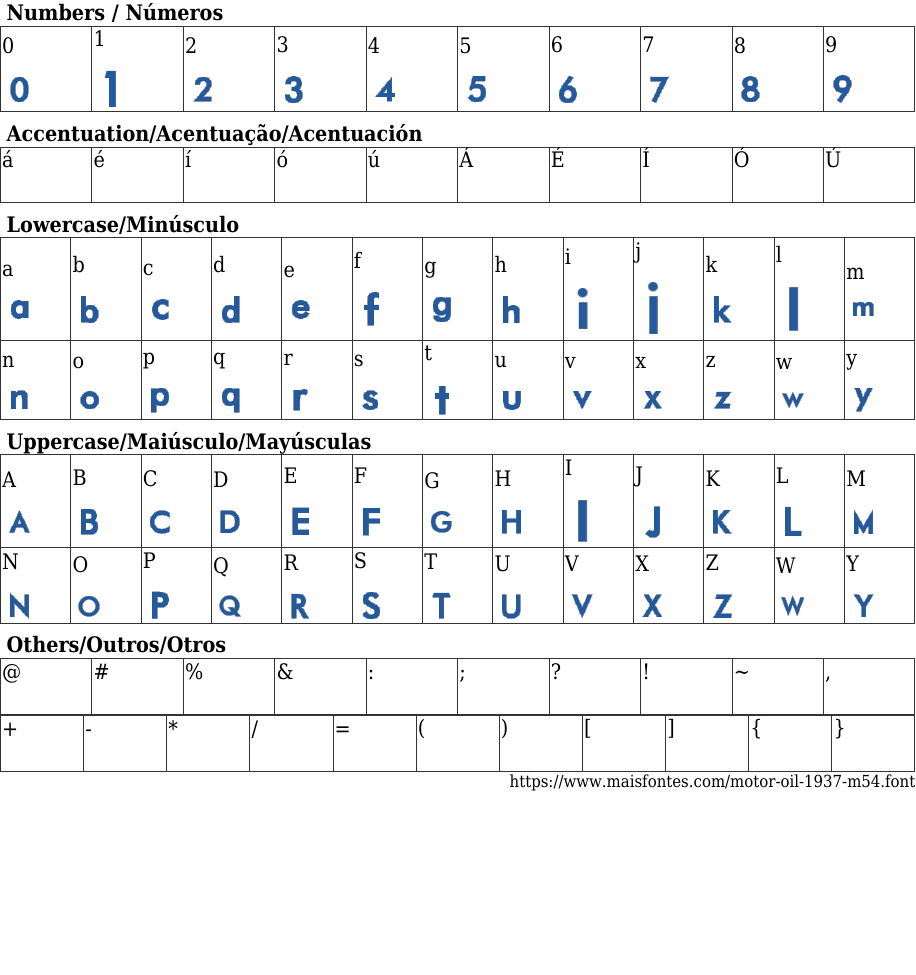
Motor Oil 1937 Font . Introducing motor oil 1937 m54, a bold and timeless font that captures the spirit of vintage automobiles and classic design. Font inspired by vintage oil logos and some of the glyphs are based around futura, especially the lower case letters. The motor oil 1937 m54 font has been downloaded 20,404 times. Download and install the motor oil 1937 m54 font by justme54s. If you find this font useful then please consider a donation to. Font motor oil 1937 m54, license and terms of use, symbols, categories, supported languages, download link. Download and install the motor oil 1937 m54 font for free from ffonts.net. ️ this font has been downloaded 7,000+ times. To learn more about the font and typography of the motor oil 1937 m54 font, simply enter the text in the field below and click. Use the text generator tool below to preview motor oil 1937 m54.
The motor oil 1937 m54 font has been downloaded 20,404 times. Use the text generator tool below to preview motor oil 1937 m54. ️ this font has been downloaded 7,000+ times. Font inspired by vintage oil logos and some of the glyphs are based around futura, especially the lower case letters. Download and install the motor oil 1937 m54 font by justme54s. Introducing motor oil 1937 m54, a bold and timeless font that captures the spirit of vintage automobiles and classic design. Download and install the motor oil 1937 m54 font for free from ffonts.net. Font motor oil 1937 m54, license and terms of use, symbols, categories, supported languages, download link. If you find this font useful then please consider a donation to. To learn more about the font and typography of the motor oil 1937 m54 font, simply enter the text in the field below and click.
Motor Oil 1937 Font The motor oil 1937 m54 font has been downloaded 20,404 times. Font inspired by vintage oil logos and some of the glyphs are based around futura, especially the lower case letters. Download and install the motor oil 1937 m54 font by justme54s. The motor oil 1937 m54 font has been downloaded 20,404 times. To learn more about the font and typography of the motor oil 1937 m54 font, simply enter the text in the field below and click. ️ this font has been downloaded 7,000+ times. Font motor oil 1937 m54, license and terms of use, symbols, categories, supported languages, download link. Introducing motor oil 1937 m54, a bold and timeless font that captures the spirit of vintage automobiles and classic design. Use the text generator tool below to preview motor oil 1937 m54. If you find this font useful then please consider a donation to. Download and install the motor oil 1937 m54 font for free from ffonts.net.
Motor Oil 1937 M54 Font justme54s FontSpace Motor Oil 1937 Font If you find this font useful then please consider a donation to. Use the text generator tool below to preview motor oil 1937 m54. Introducing motor oil 1937 m54, a bold and timeless font that captures the spirit of vintage automobiles and classic design. Font inspired by vintage oil logos and some of the glyphs are based around futura, especially. Motor Oil 1937 Font.
Motor Oil 1937 M54 Font Motor Oil 1937 Font If you find this font useful then please consider a donation to. To learn more about the font and typography of the motor oil 1937 m54 font, simply enter the text in the field below and click. Introducing motor oil 1937 m54, a bold and timeless font that captures the spirit of vintage automobiles and classic design. Download and install. Motor Oil 1937 Font.
Motor Oil 1937 M54 Font Motor Oil 1937 Font The motor oil 1937 m54 font has been downloaded 20,404 times. Font motor oil 1937 m54, license and terms of use, symbols, categories, supported languages, download link. ️ this font has been downloaded 7,000+ times. Download and install the motor oil 1937 m54 font for free from ffonts.net. Use the text generator tool below to preview motor oil 1937 m54.. Motor Oil 1937 Font.
Motor Oil 1937 M54 free font Motor Oil 1937 Font To learn more about the font and typography of the motor oil 1937 m54 font, simply enter the text in the field below and click. ️ this font has been downloaded 7,000+ times. If you find this font useful then please consider a donation to. Introducing motor oil 1937 m54, a bold and timeless font that captures the spirit of. Motor Oil 1937 Font.
Oil font free download Motor Oil 1937 Font If you find this font useful then please consider a donation to. The motor oil 1937 m54 font has been downloaded 20,404 times. Download and install the motor oil 1937 m54 font for free from ffonts.net. To learn more about the font and typography of the motor oil 1937 m54 font, simply enter the text in the field below and. Motor Oil 1937 Font.
Jersey m54 font free download 20 truetype .ttf opentype .otf files Motor Oil 1937 Font Download and install the motor oil 1937 m54 font by justme54s. Font motor oil 1937 m54, license and terms of use, symbols, categories, supported languages, download link. Introducing motor oil 1937 m54, a bold and timeless font that captures the spirit of vintage automobiles and classic design. Use the text generator tool below to preview motor oil 1937 m54. Font. Motor Oil 1937 Font.